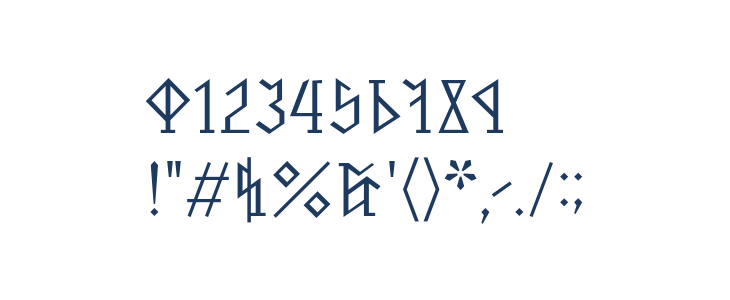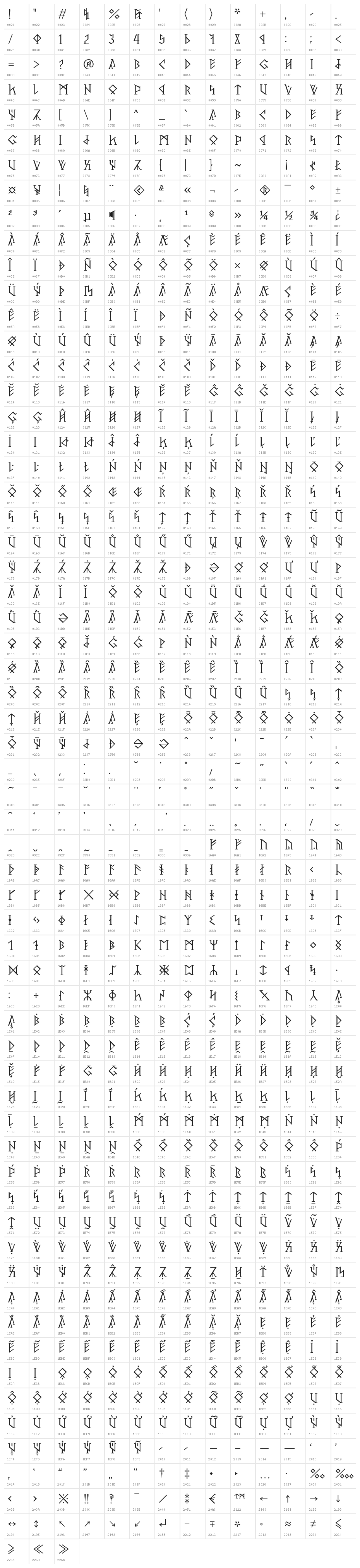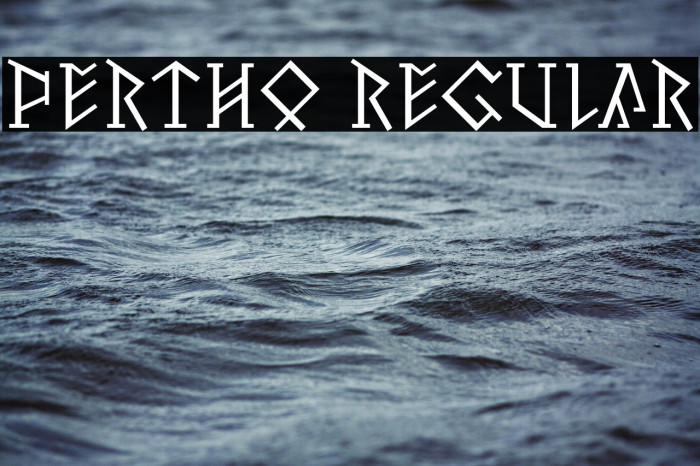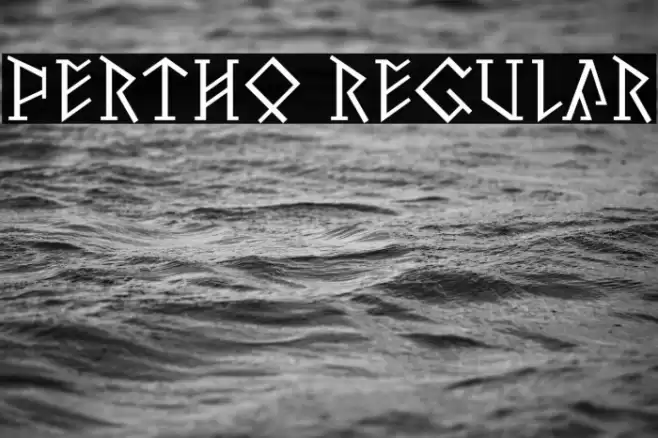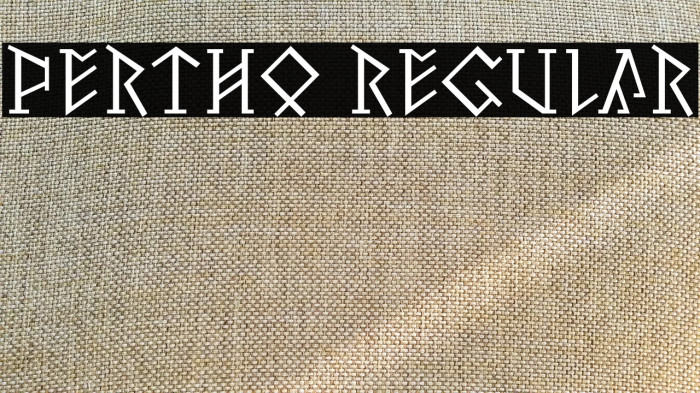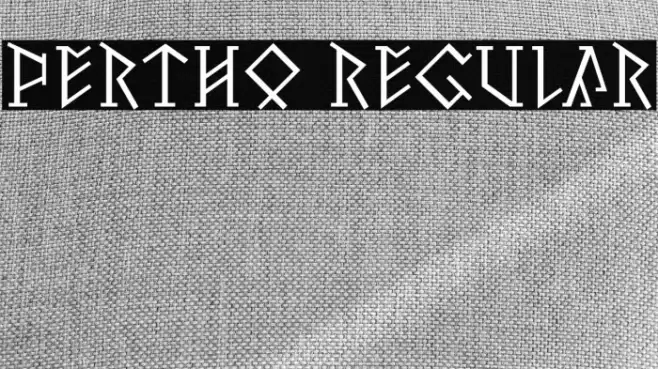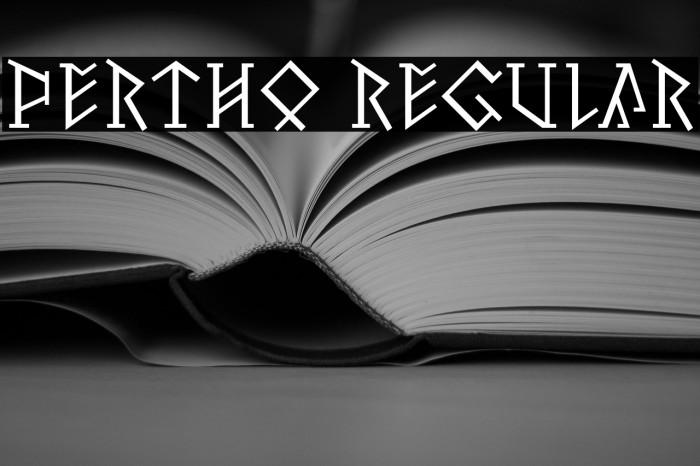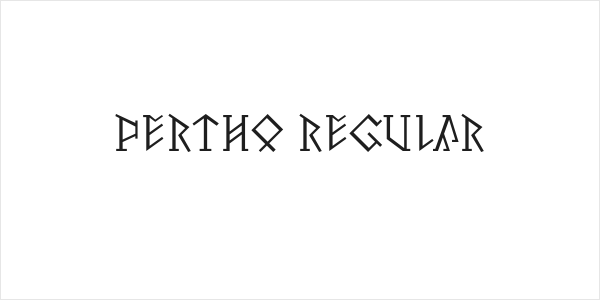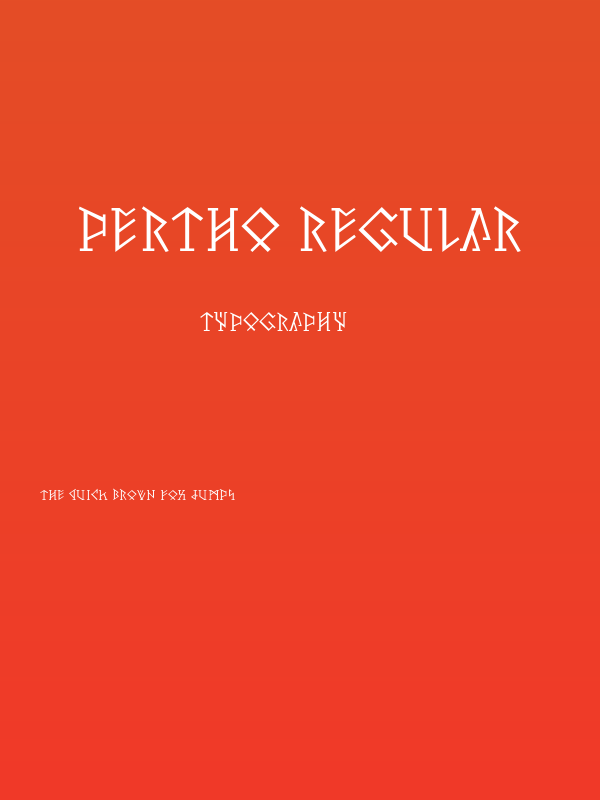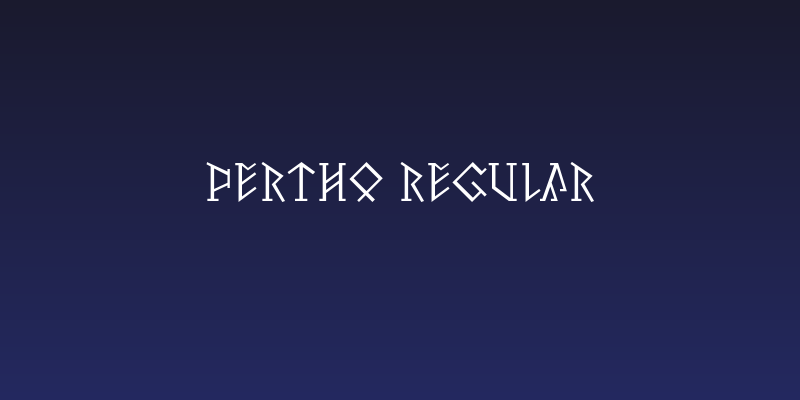
Pertho Regular Font
Pertho Regular Description
This font features a unique, angular design reminiscent of ancient runic alphabets. The characters are constructed with sharp lines and geometric shapes, giving it a distinct, edgy appearance. The uppercase and lowercase letters maintain a consistent style, with a strong emphasis on vertical and diagonal strokes. Numbers and special characters follow the same design principles, ensuring a cohesive look across all glyphs. The font's bold and striking nature makes it ideal for projects that require a touch of historical or mystical flair.
| Proposed Projects | Ideal for fantasy-themed designs, video game titles, book covers, and branding that seeks a mystical or historical aesthetic. |